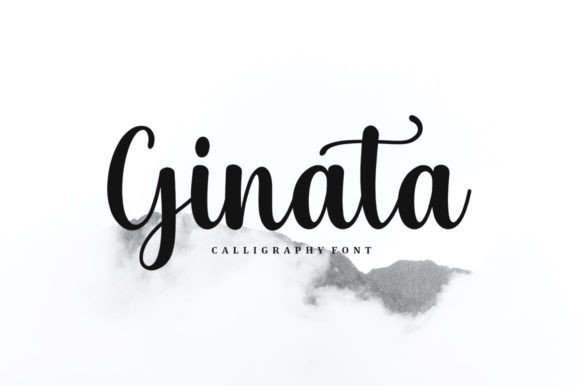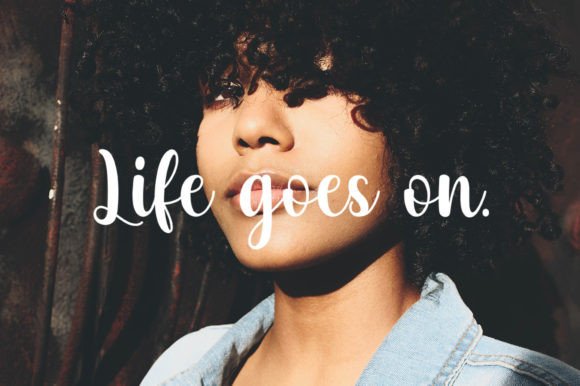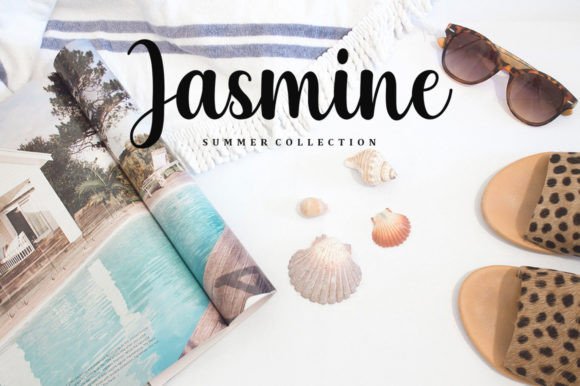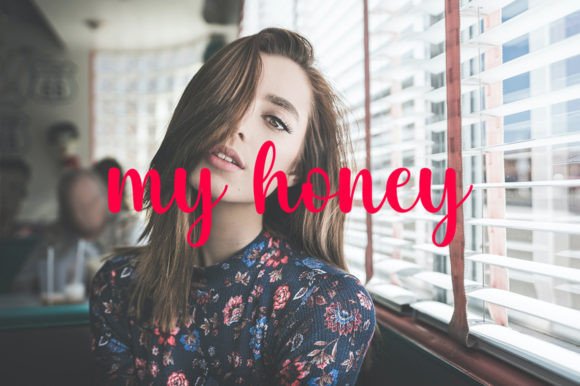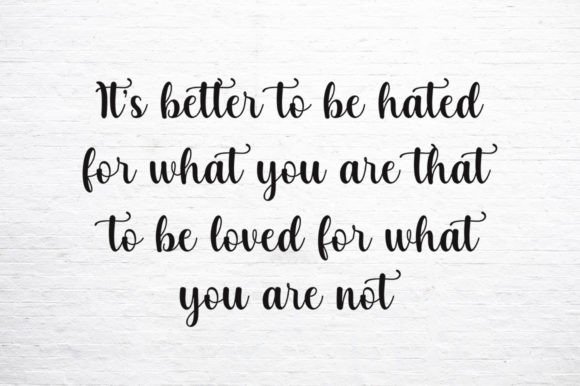
Ginata Font
About Ginata Font
**Ginata: A Romantic and Sweet Calligraphy Typeface**
**Ginata** is a romantic and sweet calligraphy typeface that adds a touch of elegance and charm to your design creations. With characters that dance gracefully along the baseline, this font strikes a balance between casual and elegant, making it a guaranteed enhancement for your creative projects.
**Ginata** stands out with its beautifully crafted calligraphic letterforms. Each character exudes a sense of beauty and grace, making it an ideal choice for projects that require a romantic and sweet look.
This font’s versatility makes it suitable for a wide range of applications. Whether you’re working on wedding invitations, branding, packaging, stationery, or any other creative project, **Ginata** elevates the overall aesthetic with its casual yet elegant touch.
In the world of wedding invitations and stationery, this font enhances the romantic and timeless aspects of your designs, setting the stage for unforgettable celebrations.
For branding and packaging, **Ginata** ensures your products and visual identity convey a sense of exclusivity and charm, leaving a lasting impression on your audience.
In conclusion, **Ginata** is more than just a font; it’s a design asset that brings romance and elegance to your creative projects. Whether you’re designing for special occasions, branding, or various other contexts, choose **Ginata** to infuse your work with its unique and charming charm. Embrace its graceful beauty, and let your creativity flourish with sophistication.